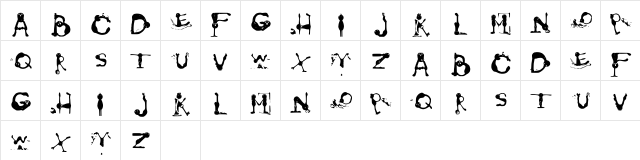
Grovers Pain Regular
Design Context for Grovers Pain Typeface
Grovers Pain is a composed and adaptable typeface that performs quietly and consistently across a wide range of design contexts.